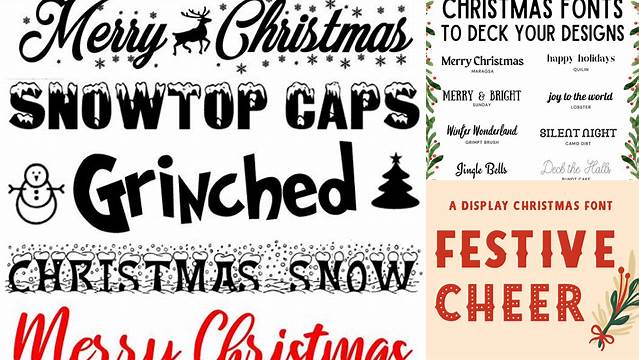
Cute Christmas Fonts: Copy & Paste For Festive Cheer
Hey guys! Christmas is just around the corner, and if you're anything like me, you're probably already brainstorming ways to make this holiday season extra special. One of my favorite ways to spread Christmas cheer is through festive fonts! Whether you're creating holiday cards, designing social media posts, or jazzing up your website, the right font can make all the difference. In this guide, we'll explore a winter wonderland of cute Christmas fonts that you can easily copy and paste to add a touch of magic to your projects. Let's dive in and discover how to make your creations sparkle with holiday spirit!
Why Use Cute Christmas Fonts?
Cute Christmas fonts are more than just pretty letters; they're a powerful tool for evoking the warmth, joy, and nostalgia of the holiday season. When you use festive fonts, you're not just adding text; you're adding a layer of emotion and personality to your message. Think about it: a heartfelt Christmas card written in a whimsical, handwritten-style font feels much more personal and touching than one written in a standard, plain font. Similarly, a social media post with a playful, decorative font can instantly grab attention and spread holiday cheer. These fonts are the secret ingredient to making your Christmas projects stand out, adding that extra sprinkle of magic that makes the holidays so special.
The visual impact of cute Christmas fonts cannot be overstated. They create an immediate connection with the viewer, setting the tone and mood for your message. Imagine designing invitations for your Christmas party. Using a font that resembles elegant calligraphy or playful snowflakes can instantly convey the festive atmosphere you want to create. Or picture crafting personalized gift tags with a font that looks like it was handwritten by Santa's elves – it adds a touch of whimsy and charm that makes the gift feel even more special. The right font choice enhances the overall aesthetic, making your creations visually appealing and memorable. By choosing a font that reflects the spirit of Christmas, you make your message more engaging and enjoyable for your audience. These fonts act as visual cues, triggering positive associations with the holiday season and making your content more impactful and delightful.
Moreover, cute Christmas fonts can significantly enhance your branding during the holiday season. For businesses, this is a fantastic opportunity to connect with customers on a more emotional level. Imagine a bakery advertising its Christmas-themed treats using a font that looks like gingerbread icing – it instantly creates a mouth-watering, festive impression. Or a retail store promoting its holiday sales with a font that evokes the cozy feeling of a winter cabin. By incorporating these fonts into your marketing materials, you create a cohesive and memorable brand image that resonates with the holiday spirit. This not only attracts attention but also fosters a sense of goodwill and connection with your audience. Using cute Christmas fonts in your branding helps to create a festive and inviting atmosphere, making your business stand out during the crowded holiday season and leaving a lasting positive impression on your customers. So, think of these fonts as your secret weapon for making your brand shine brighter during the most wonderful time of the year.
Where to Find Cute Christmas Fonts
Finding the perfect cute Christmas font can feel like unwrapping an early present! Luckily, the internet is brimming with options, both free and premium, to suit every style and project. For those of us on a budget, several websites offer a fantastic selection of free fonts that don't skimp on holiday cheer. Websites like Google Fonts, Font Squirrel, and DaFont are treasure troves of festive typefaces, ranging from elegant scripts to playful display fonts. These sites often have categories specifically dedicated to Christmas or holiday fonts, making it easy to browse and discover your favorites. The best part? You can usually download these fonts directly to your computer and start using them in your projects right away. So, if you're looking to spread some holiday cheer without spending a dime, these free font resources are your go-to destinations.
If you're looking for something a bit more unique or high-end, premium font marketplaces like Creative Market, MyFonts, and Adobe Fonts offer an extensive collection of professionally designed cute Christmas fonts. These fonts often come with additional features, such as multiple weights, alternate characters, and broader licensing options, giving you greater flexibility and control over your designs. While premium fonts come with a price tag, the investment can be well worth it if you're aiming for a polished, professional look, especially for commercial projects. These marketplaces also offer font bundles and seasonal sales, so you can often snag a great deal on a set of stunning holiday fonts. Exploring these premium options allows you to elevate your designs and ensure your projects have a distinct and sophisticated festive flair.
Beyond dedicated font websites, don't forget to explore design platforms like Canva and Adobe Creative Cloud Express. These tools often include a curated selection of cute Christmas fonts that you can use directly within their design interfaces. This can be particularly convenient if you're creating graphics or social media content within these platforms, as you don't need to download and install fonts separately. Additionally, these platforms often offer font pairing suggestions, helping you choose complementary fonts that work well together in your designs. Whether you're a seasoned designer or a DIY enthusiast, utilizing these platforms can streamline your creative process and make it easier to find and use the perfect festive fonts for your holiday projects. So, remember to check out these all-in-one design hubs for a seamless font-finding experience.
How to Copy and Paste Cute Christmas Fonts
Now, let's talk about the magic trick of copying and pasting cute Christmas fonts. While you can't directly copy and paste a font style from one place to another like you would with text, there are several clever ways to achieve a similar effect. The key is understanding how fonts work in different applications and platforms. One of the easiest methods is using online font generators or text styling tools. These tools allow you to type in your desired text, choose from a variety of festive fonts, and then copy and paste the stylized text into your project. This is especially useful for social media captions, emails, and other digital communications where you want to add a touch of Christmas flair without changing the default font settings of the platform.
Another handy trick involves using Unicode characters. Unicode is a universal character encoding standard that includes a wide range of symbols and stylized letters, some of which resemble cute Christmas fonts. You can find Unicode character tables online that include decorative letters, symbols, and even festive icons. Simply copy the characters you want to use and paste them into your text. While this method might not give you the exact look of a specific font, it's a great way to add some festive flair to your text, especially in places where custom fonts aren't supported, like social media bios or text messages. Play around with different combinations of characters to create unique and eye-catching holiday messages. This method allows you to get creative and add personality to your text even within the limitations of certain platforms.
For more advanced design projects, like creating holiday cards or website graphics, the best approach is to download and install the cute Christmas font directly onto your computer. Once the font is installed, it will be available in your favorite design software, such as Adobe Photoshop, Illustrator, or Canva. This gives you the most flexibility and control over your typography, allowing you to adjust font size, color, spacing, and other styling options. When you're working in a design program, you can simply select the font from the font menu and start typing. This method ensures that your text looks exactly as you intended, with all the nuances and details of the chosen font. So, for projects where visual precision is key, downloading and installing the font is the way to go. It opens up a world of creative possibilities and ensures your holiday designs are truly stunning.
So, there you have it, guys! A comprehensive guide to cute Christmas fonts that you can copy and paste your way to festive cheer. From elegant scripts to playful display fonts, there's a whole world of typographical magic waiting to be discovered. Remember, the right font can transform your holiday projects, adding a touch of warmth, whimsy, and sparkle that captures the spirit of Christmas. Whether you're designing cards, creating social media content, or jazzing up your website, these fonts are your secret weapon for spreading holiday joy. So, go ahead, explore the wonderful world of Christmas fonts, and let your creativity shine! Happy holidays, and happy designing!